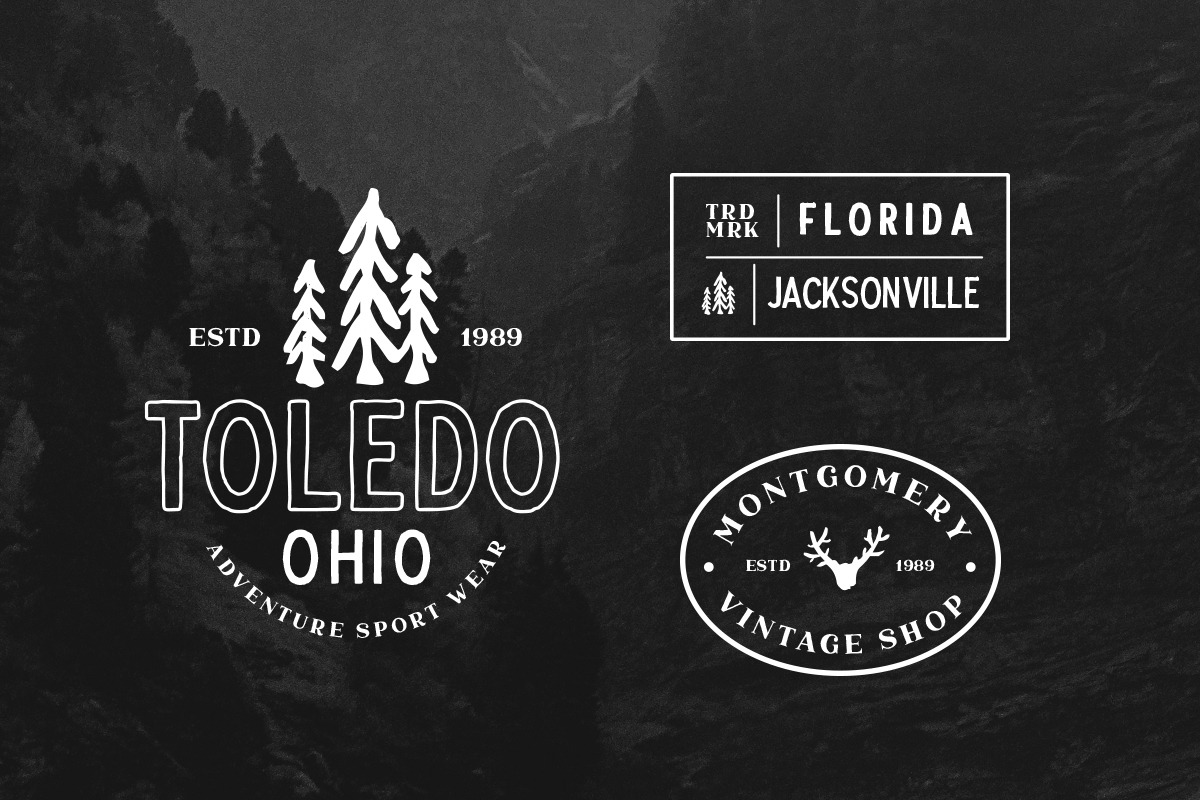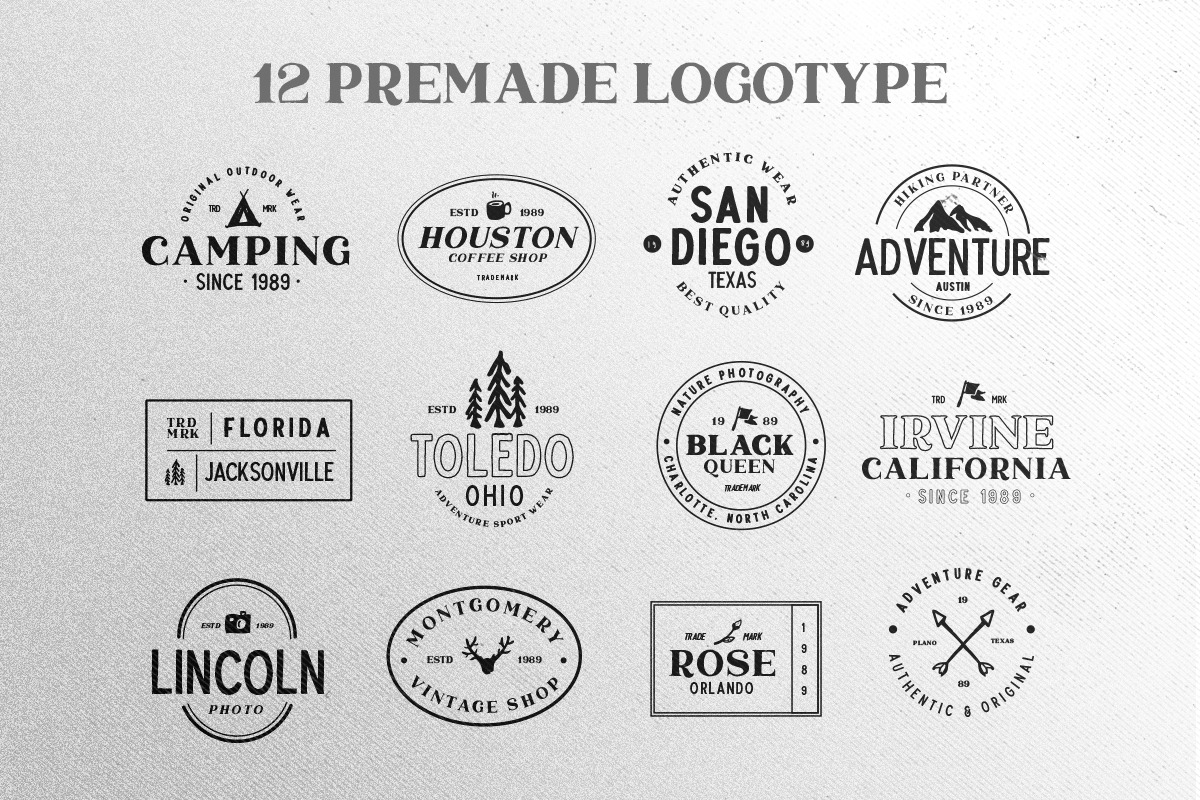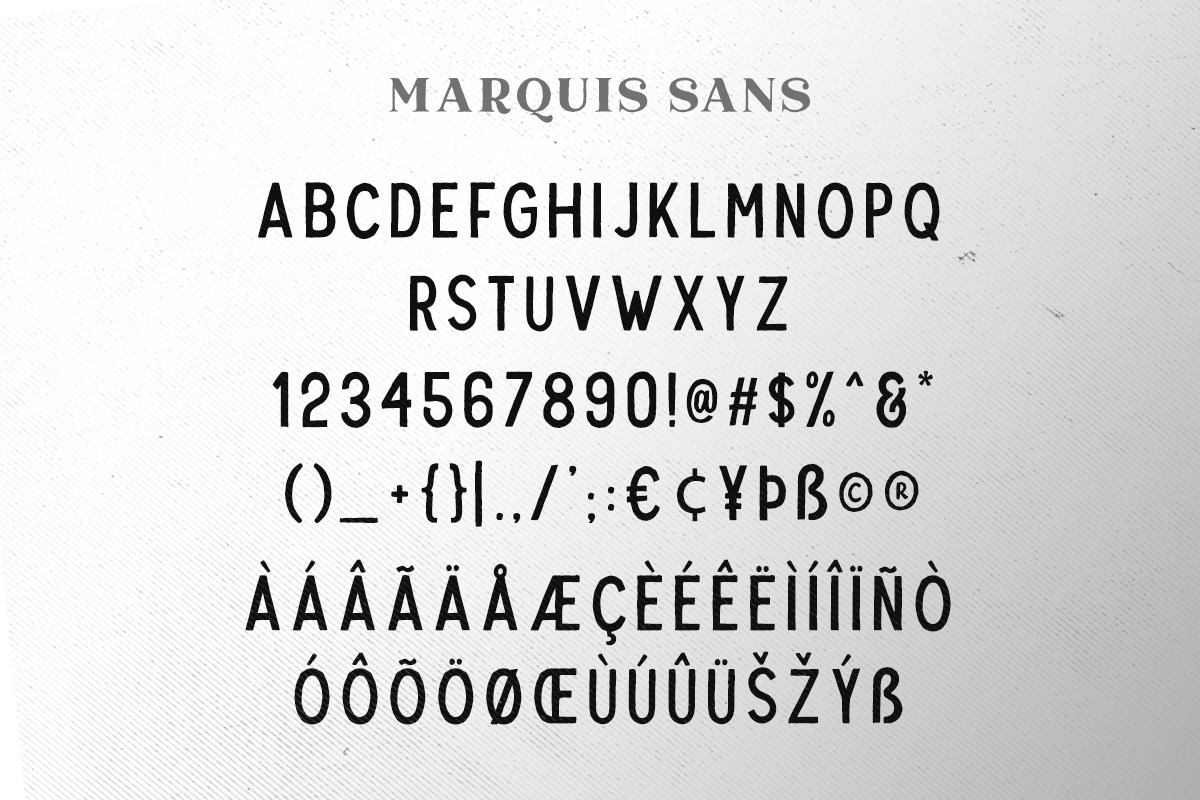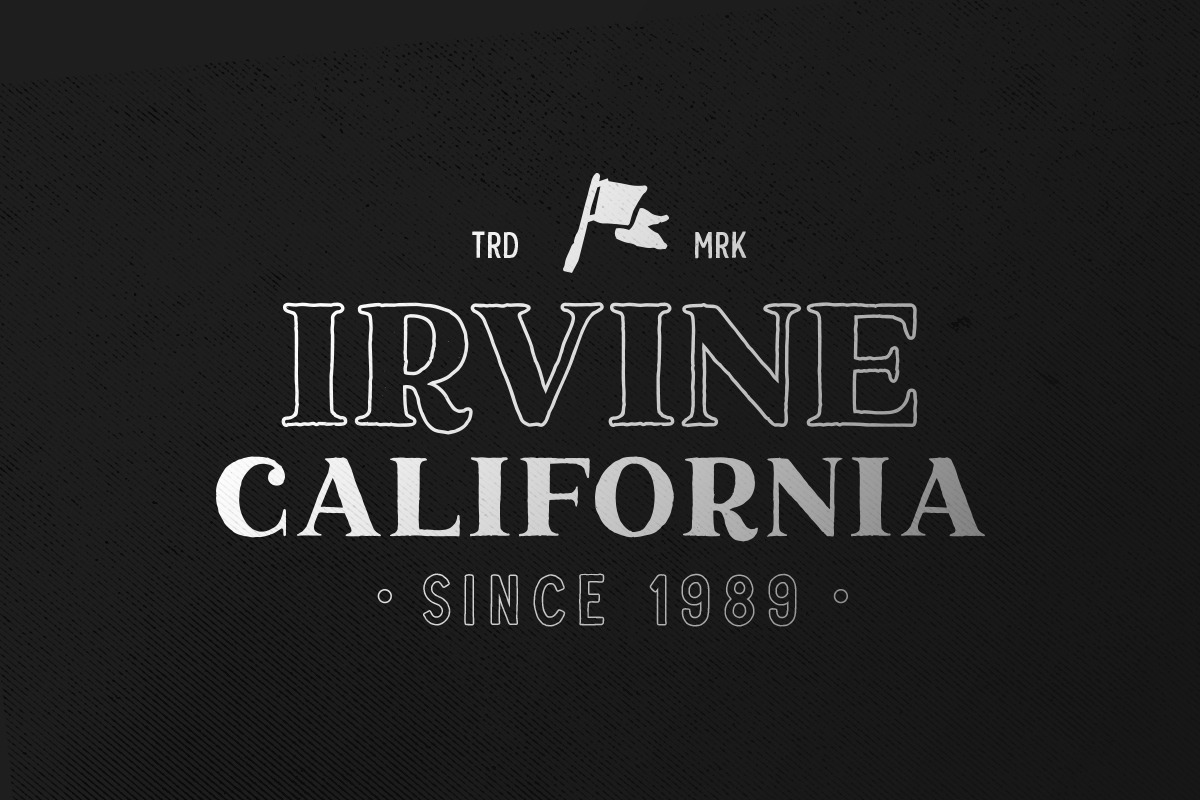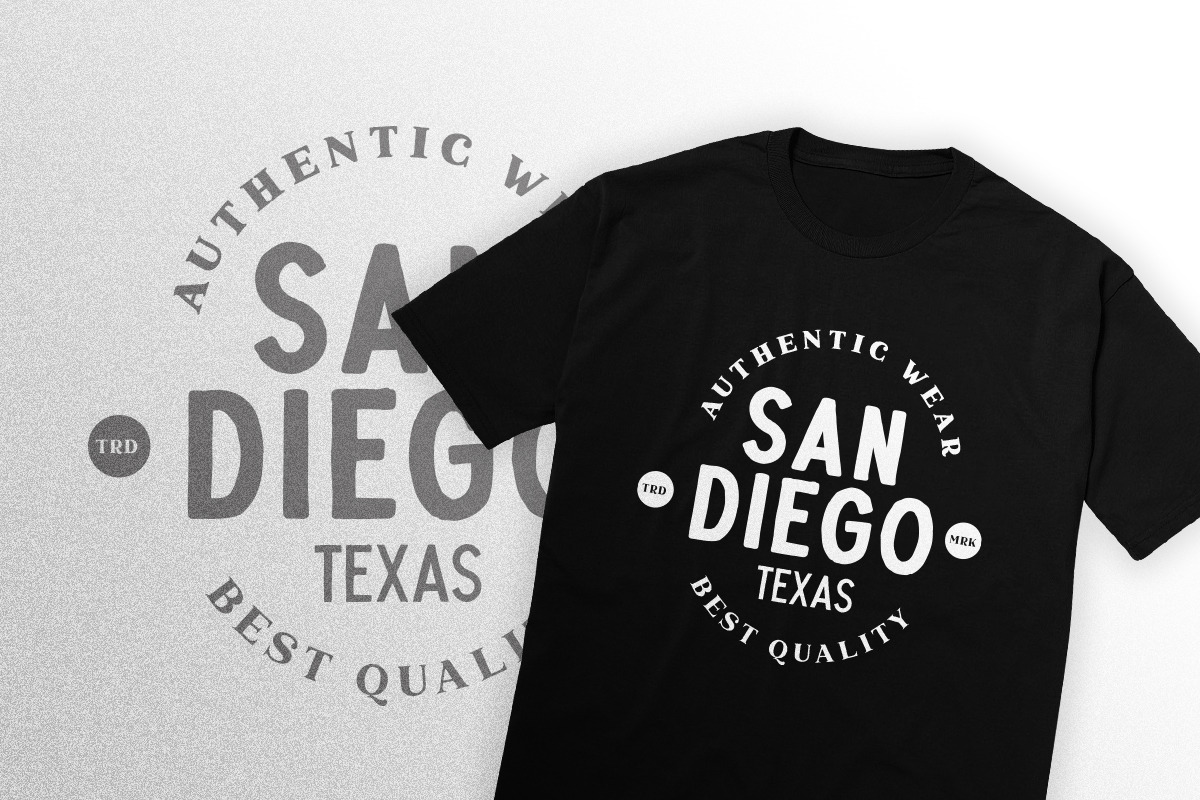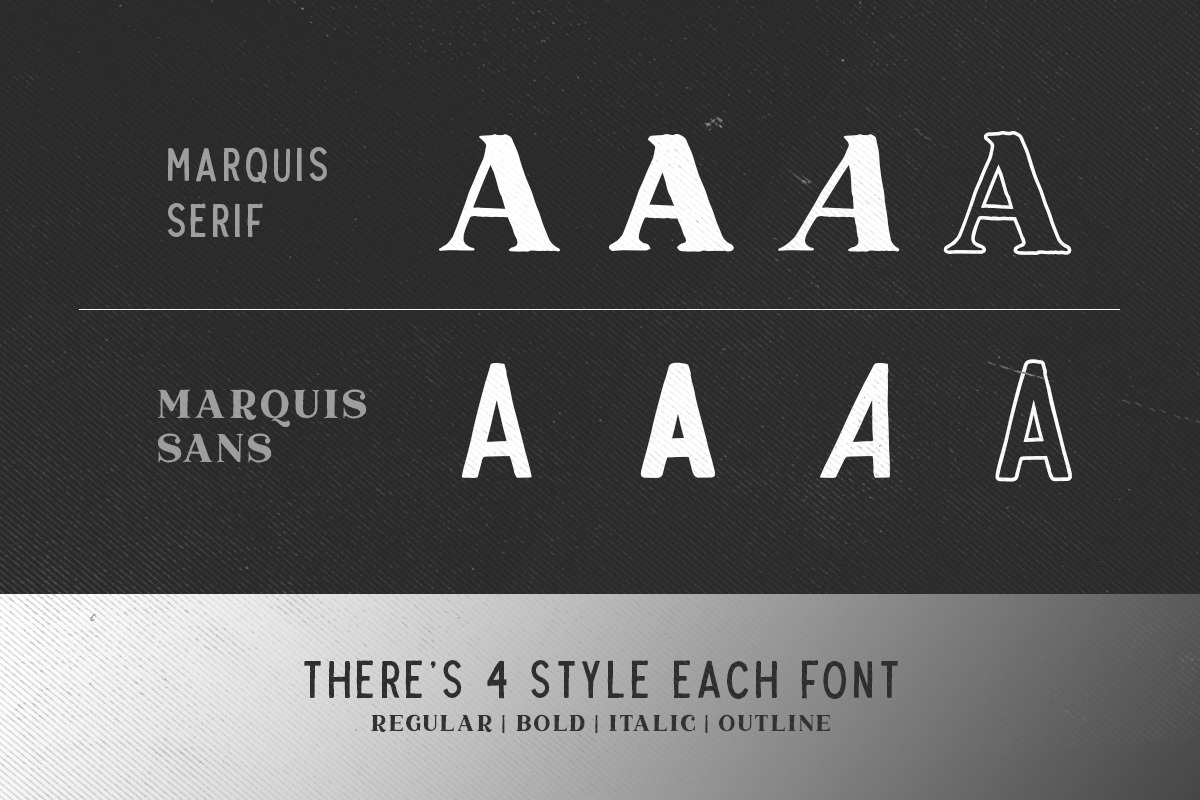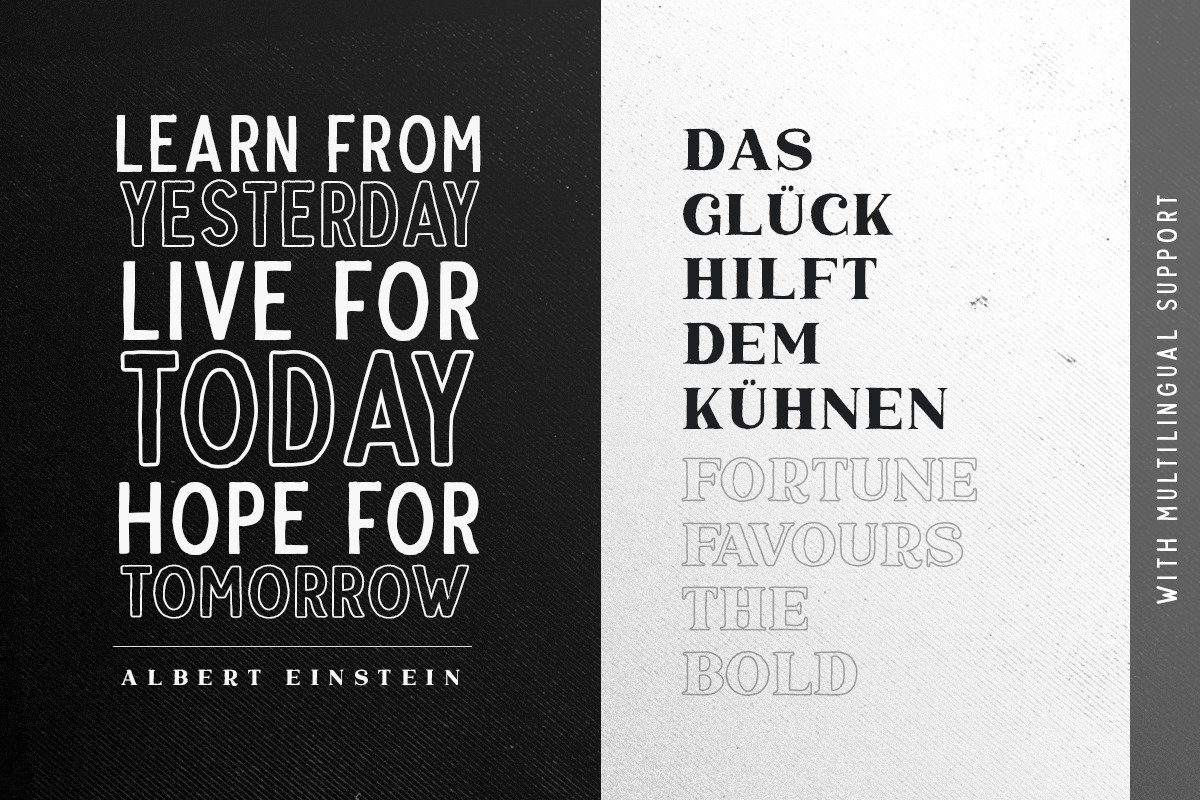
Marquis - Organic Font Duo (+EXTRAS)
Introducing, Marquis - Organic Font Duo (+EXTRAS)
Marquis is a handmade font duo with natural and organic feels! Contain two fonts, Serif and Sans with 4 style each font. Including Regular - Bold - Italic - Outline. You can use this font for every project. Suitable for branding logo, hand lettering, or apparel design. This font duo also support multilingual, number and symbol. Also this font already PUA Encoded. You also will get 12 PREMADE LOGOTYPE!
- This font duo also support multilingual, number and symbol.